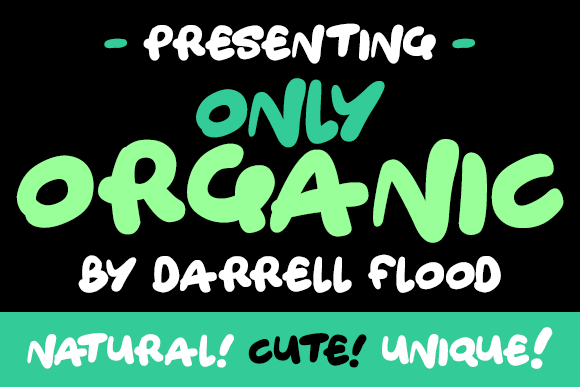
Only Organic Font
About Only Organic Font
A cute, freehand font in a natural, loose style. Perfect for adding character to food packaging and organic promotions!